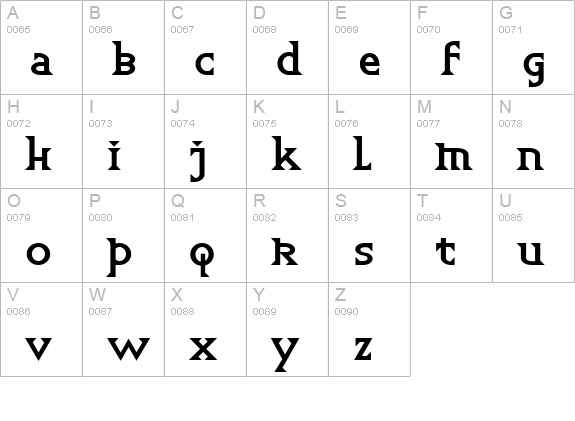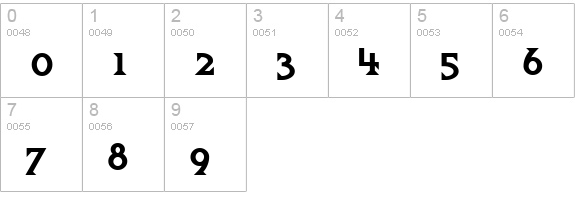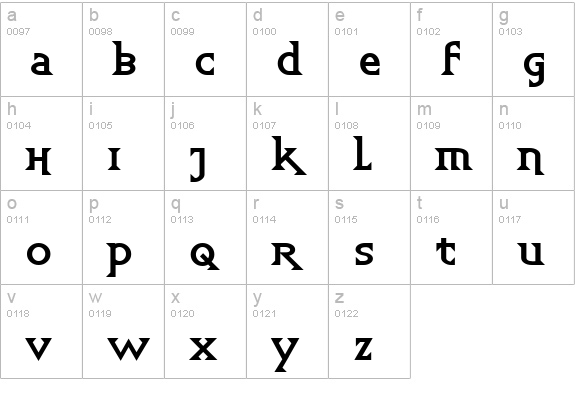
UpbeatDemi Font Details
Introducing UpbeatDemi font, a delightful and energetic typeface that exudes positivity and charm. Its playful curves and bold strokes make it perfect for adding a touch of cheer to any design project. Whether you're working on a poster, logo, or social media graphic, UpbeatDemi font will bring a sense of joy and vibrancy to your creations. This versatile font is suitable for a wide range of applications, from branding to packaging to invitations. Its modern and stylish appearance will make your text stand out and capture the attention of your audience. Best of all, UpbeatDemi font is available for free download at FontsMarket.com. So why wait? Add a splash of happiness to your designs today with UpbeatDemi font.